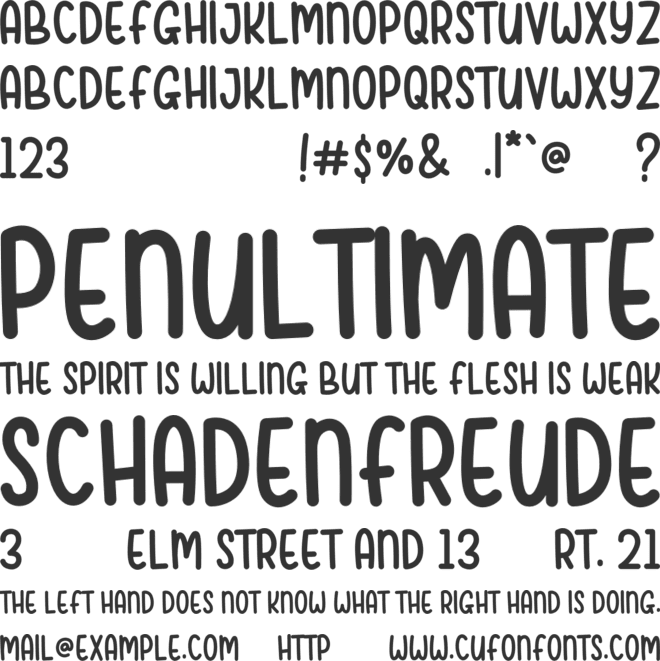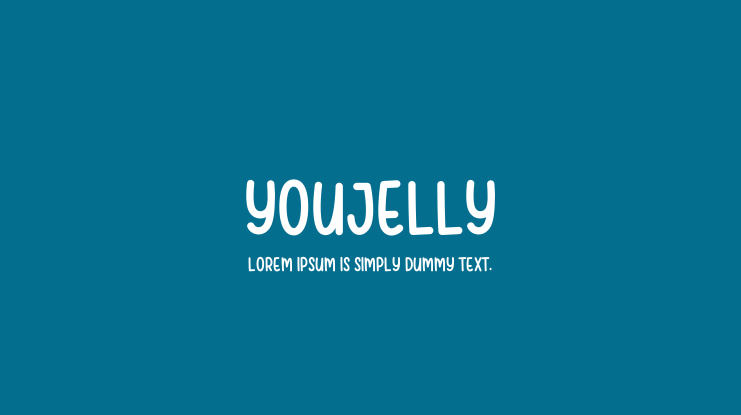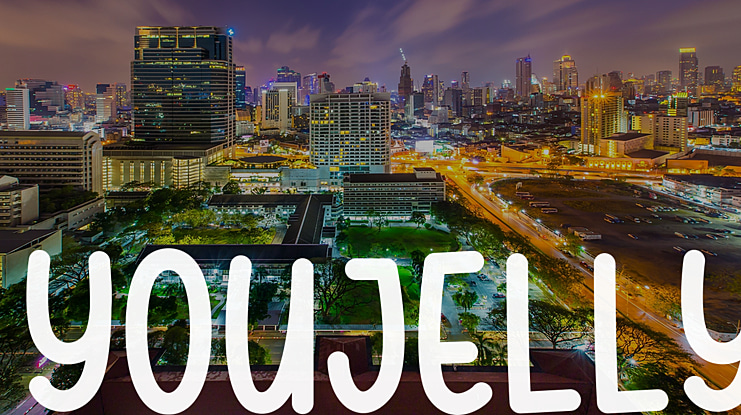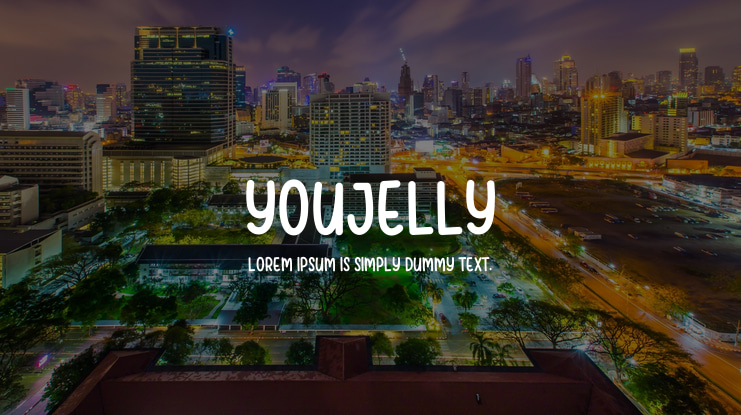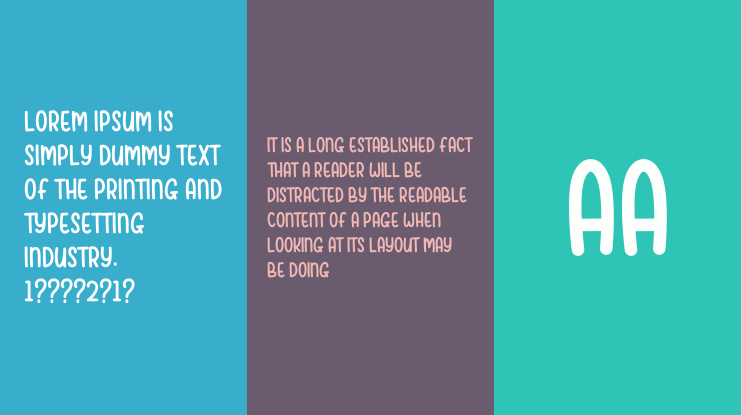
Youjelly Font
Septian Muhadi
Youjelly is a fun handwritten font and perfect for many different project such a cover book children, text book children, subtitle songs, quotes, logos & branding, social media posts, watermark, stationery, label, clothing and much more.